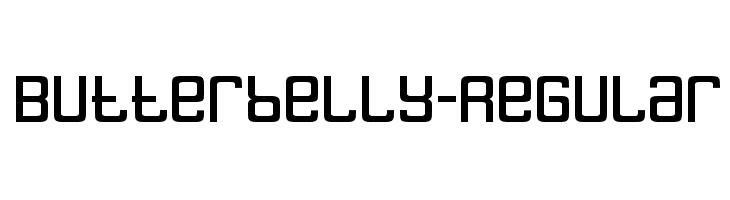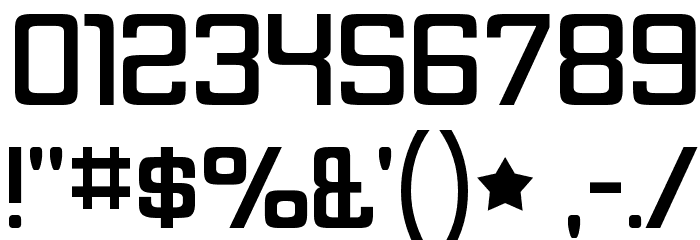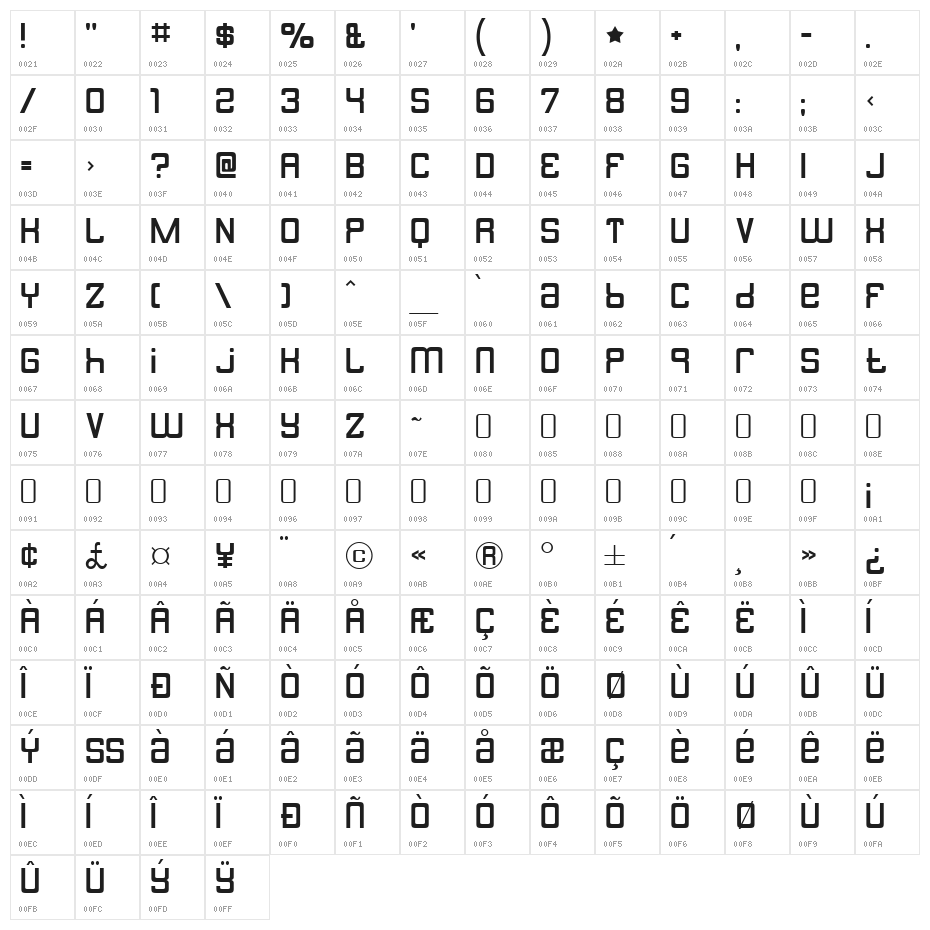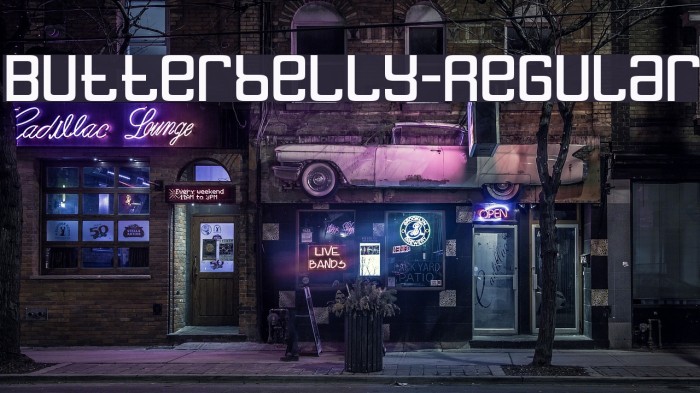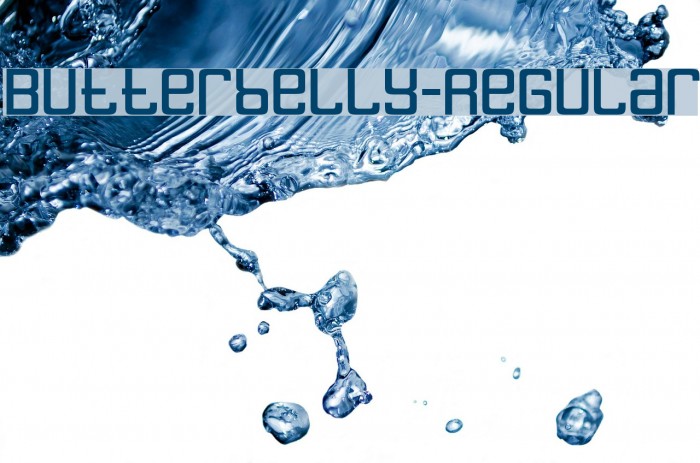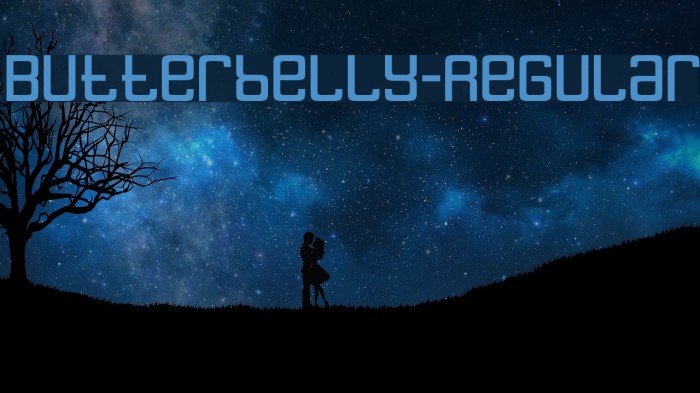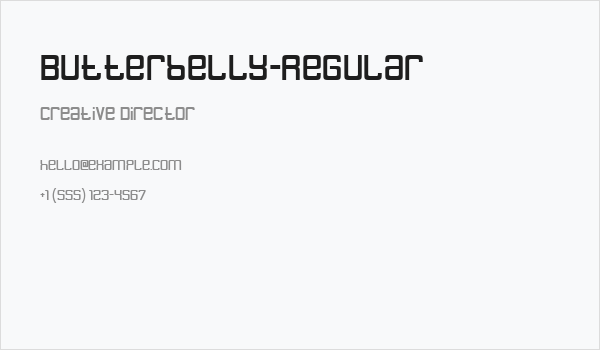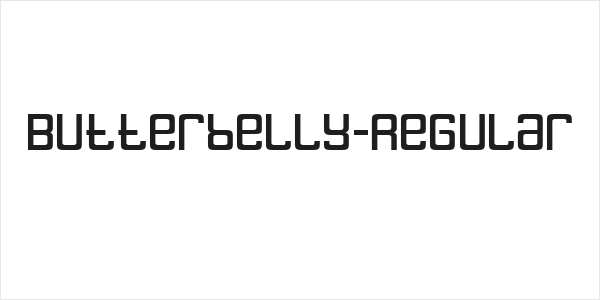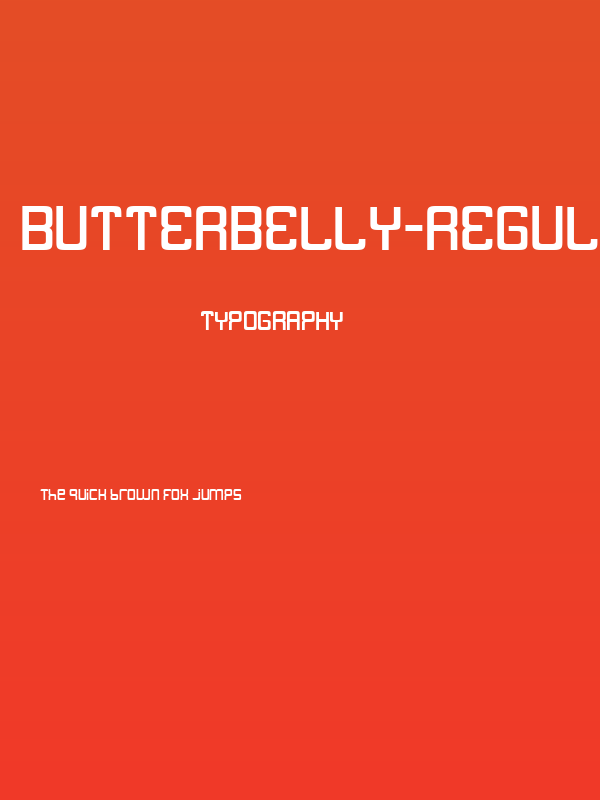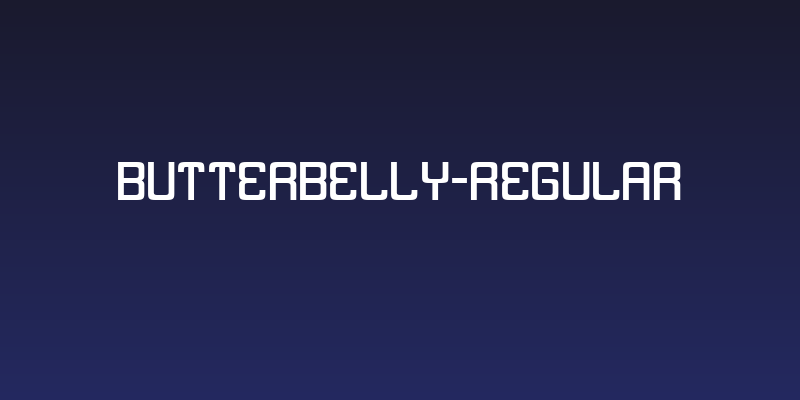
Butterbelly-Regular Font
Butterbelly-Regular Description
This font features a bold, geometric style with a modern twist. The characters are constructed with rounded edges and consistent stroke widths, giving it a friendly and approachable appearance. The uppercase and lowercase letters maintain a uniform height, contributing to a clean and organized look. The numerals and special characters are designed to match the overall aesthetic, ensuring visual harmony across all elements. Its distinct style makes it suitable for a variety of design applications where a contemporary and playful feel is desired.
| Proposed Projects | Ideal for branding, posters, packaging, and digital media where a modern and approachable look is needed. |